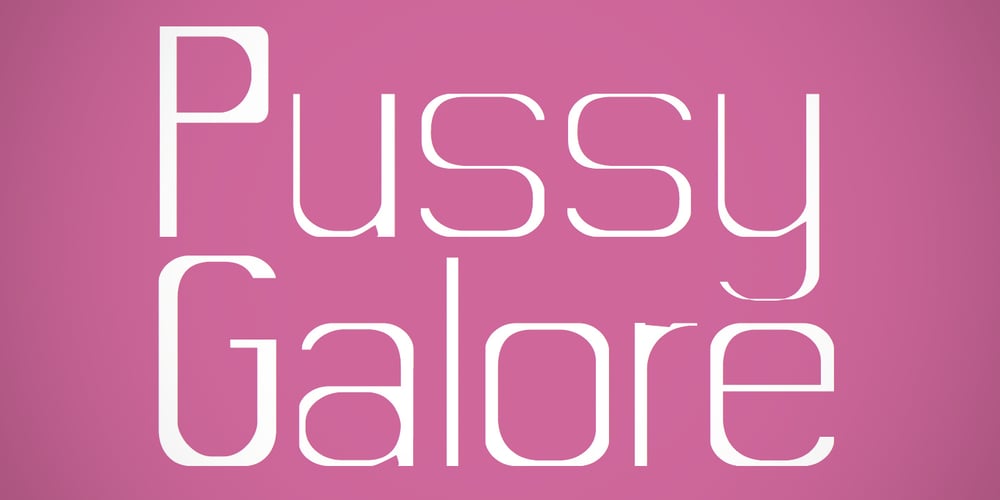
CA Pussy Galore Font Family was designed by Thomas Schostok and published by Cape Arcona Type Foundry. CA Pussy Galore contains 3 styles and family package options. Based upon a lettering for a “chicken grill wagon” this font is really strange. All letters were selfmade and then glued onto the wagon by a turkish man. The letters reads “Hähnchen vom Grill” (German language), which means “grilled chicken”. Tasty! Well, I never tasted that chicken…